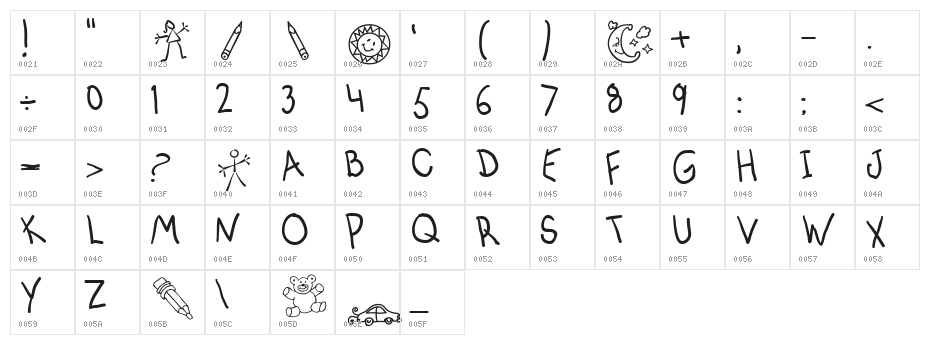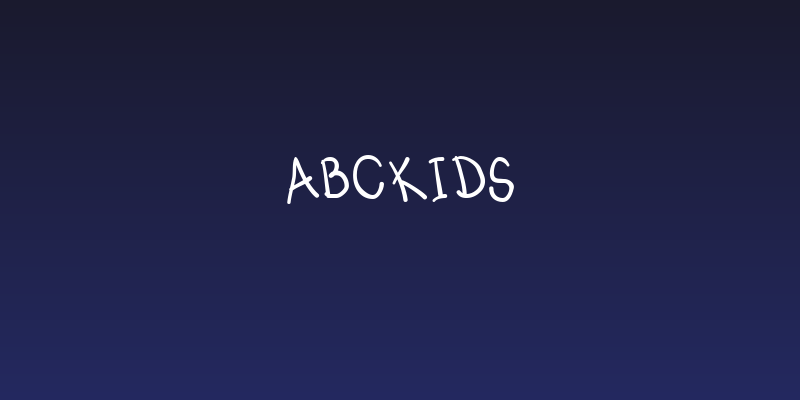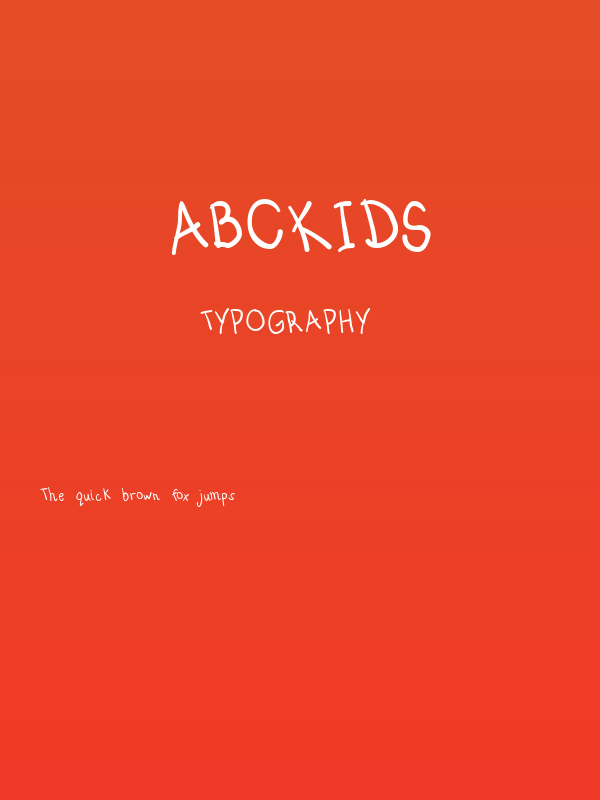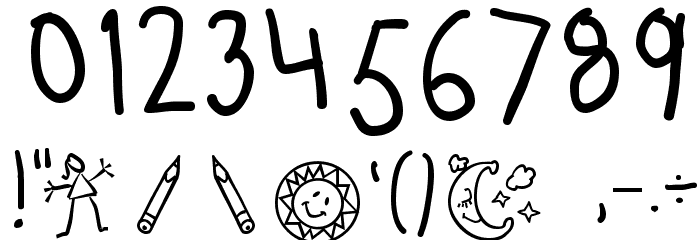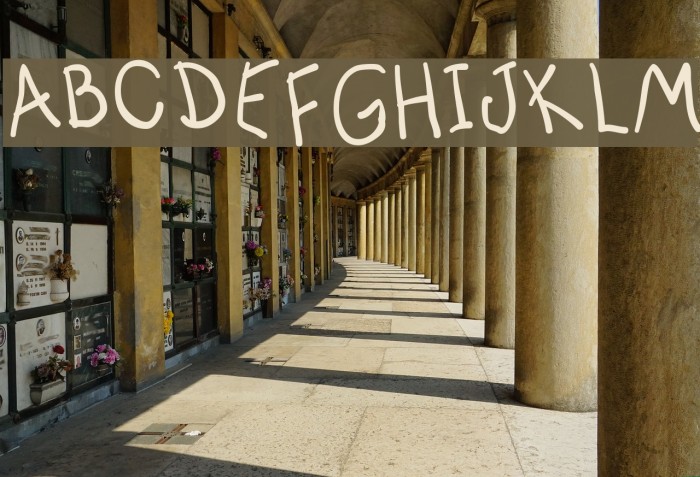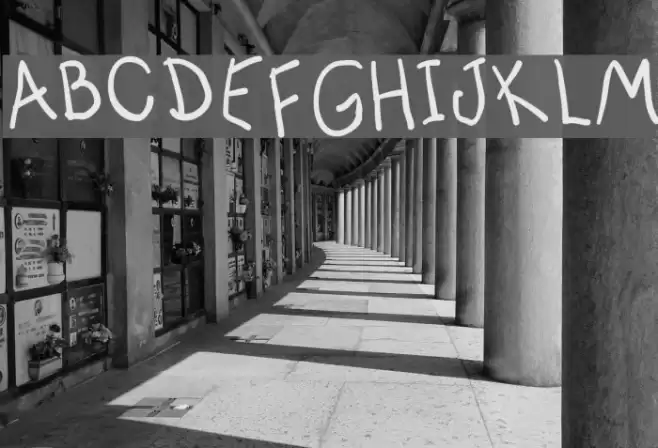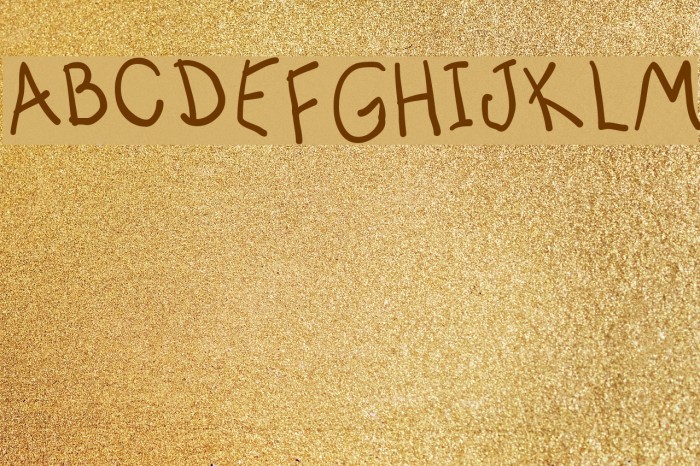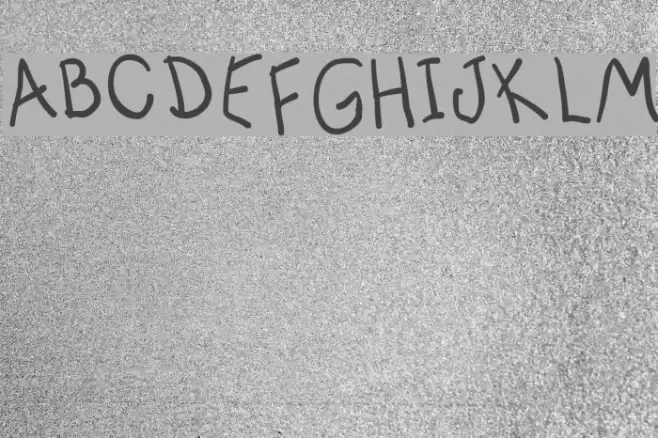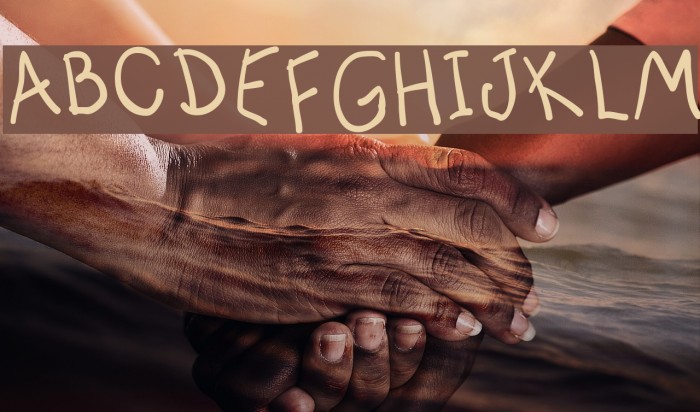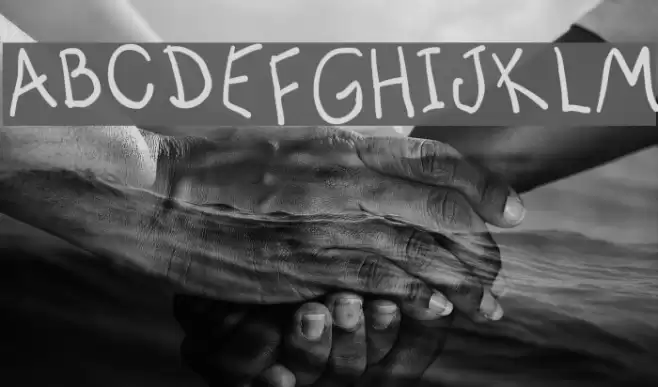
AbcKids Font
AbcKids Description
This playful and whimsical font features a hand-drawn style that captures the essence of childlike creativity. The letters are uneven and slightly tilted, giving an informal and friendly appearance. The strokes are consistent in thickness, creating a uniform look despite the casual design. The numbers and special characters maintain the same playful aesthetic, with charming illustrations accompanying some of the symbols. This font is perfect for projects that aim to convey fun, creativity, and a youthful spirit.
| Overall Style | Playful |
| Use Case | Headlines, Logos, Creative projects |
| Proposed Projects | Ideal for children's books, educational materials, playful branding, and creative art projects. |